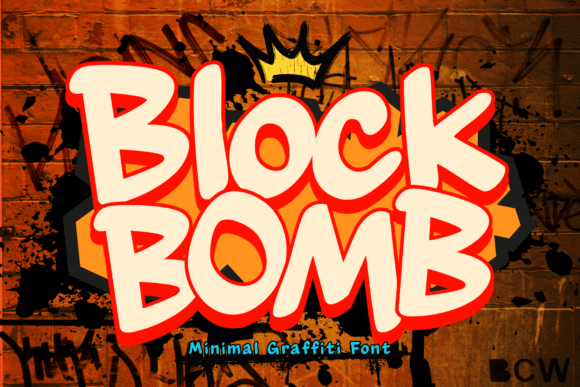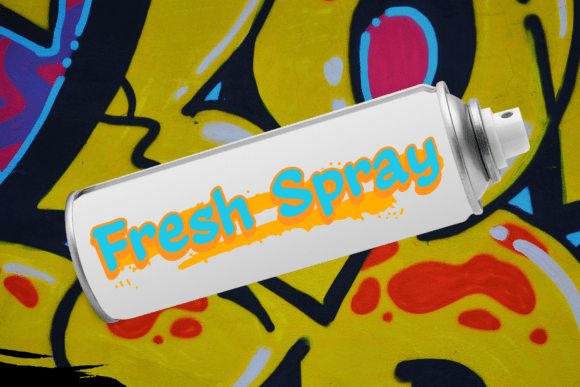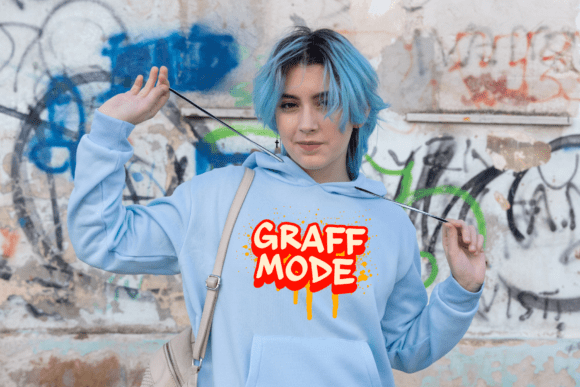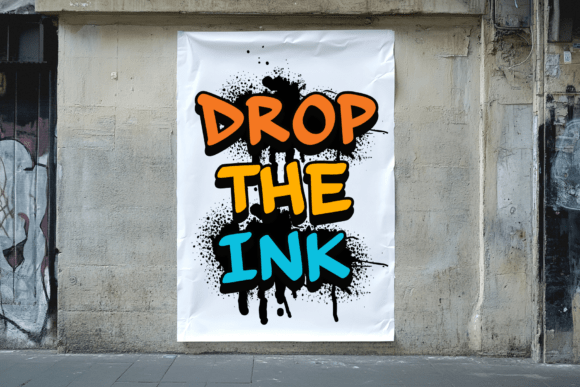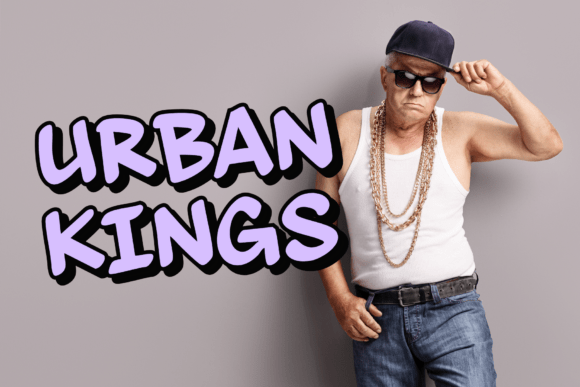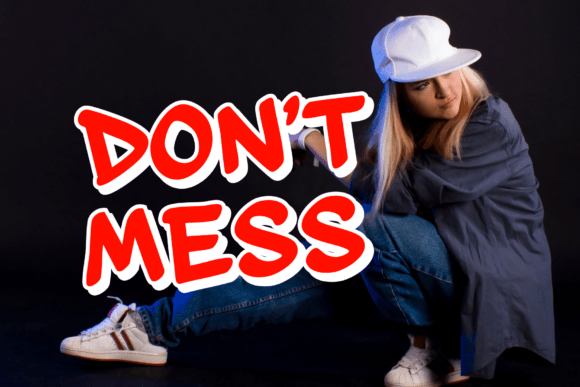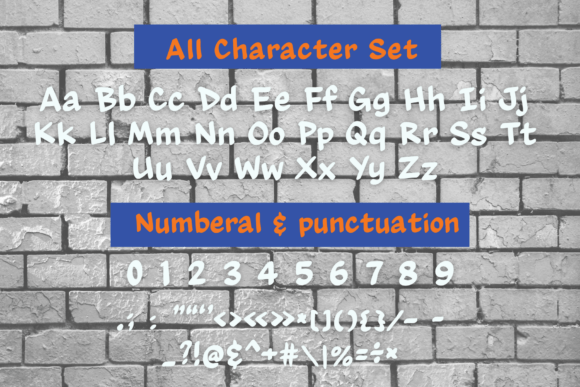
The Perfect Combination of Playfulness and Authenticity: Blockbomb Font
Have you ever sat down with a blank canvas, a blank page, or a blank screen, and suddenly, a burst of creativity hits you? The ideas start flowing, and you know exactly what you want to create – something unique, something bold, and something that truly represents your personality. That’s exactly what happened to many designers who discovered the Blockbomb Font.
This cool, graffiti-tagging font is more than just a design element; it’s an attitude, a statement, and a way to express yourself. Whether you’re working on a blog post, a logo, or an invitation, the Blockbomb Font is the perfect choice to add that extra oomph to your design. Its playfulness and authenticity make it a valuable addition to any designer’s toolkit, and its versatility knows no bounds.
Blockbomb Font Key Features
- Unique Characteristic: The Blockbomb Font features a bold, 3D-like design with a textured, block-like aesthetic, ideal for making bold statements and adding visual interest to designs.
Blockbomb Font Review
I recently had the chance to work with the Blockbomb Font, and I must say it’s an interesting addition to the font family. ✨ One thing that works well is its bold and edgy style, making it perfect for headings and titles. The font is also highly customizable, allowing you to adjust its size, color, and even add some extra flair with its many ligatures.
However, there are a few limitations to consider. ⚠️ For one, the font may not be the best choice for body text due to its bold nature, which can be overwhelming for long passages. Additionally, some of the characters may not render properly in certain contexts, such as on mobile devices or in specific software applications.
Overall, I’d say the Blockbomb Font is a great option for designers who want to add a touch of edginess to their projects. While it may not be suitable for every use case, it’s a solid choice for headings, titles, and other decorative elements. Just be sure to test it thoroughly in different contexts to ensure it meets your needs.
- Edgy and bold style ✨
- Many ligatures available
- May not be suitable for body text
- Some characters may not render properly in certain contexts ⚠️
Tips for Getting the Most Out of Blockbomb Font
To maximize the impact of Blockbomb Font, use it in bold or italic styles to add emphasis to your text. You can also combine it with other fonts to create a unique visual hierarchy.
Experiment with different font sizes and colors to create a striking visual effect. Blockbomb Font works well with bold colors and contrasting backgrounds.
Blockbomb Font is ideal for:
Headlines and titles, especially in modern and minimalist designs
Branding and logo designs, where a bold and modern font is desired
Editorials and magazines, where a clean and modern font is required
Infographics and presentations, where a clear and easy-to-read font is necessary